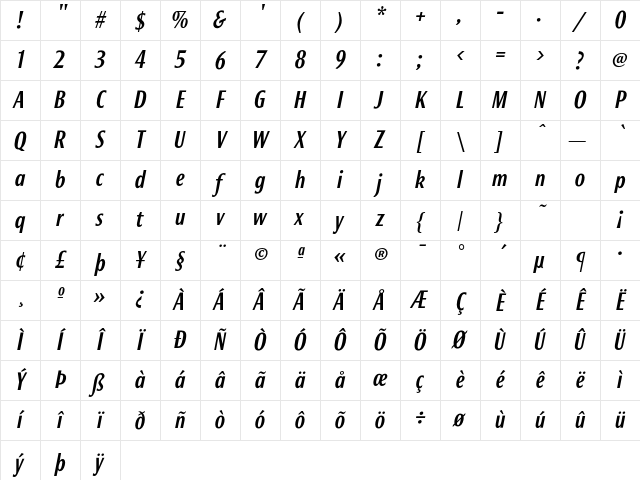
Bureau Roxy FB Medium Italic
Foundry: The Font Bureau Inc
Complete Bureau Roxy FB Medium Italic glyph index. Displaying only characters natively supported by Bureau Roxy FB Medium Italic font.
Design Context for Bureau Roxy FB Medium
Bureau Roxy FB Medium is a composed and adaptable typeface that performs quietly and consistently across a wide range of design contexts. The slanted form adds forward momentum and visual energy.
Pro Tip: Use Bureau Roxy FB Medium for emphasis, pull quotes, and subheadings where its slanted energy can add rhythm to the layout.
Who designed the Bureau Roxy FB Medium Italic font?
This font was published by The Font Bureau Inc. Check the technical specs section for copyright and designer details.